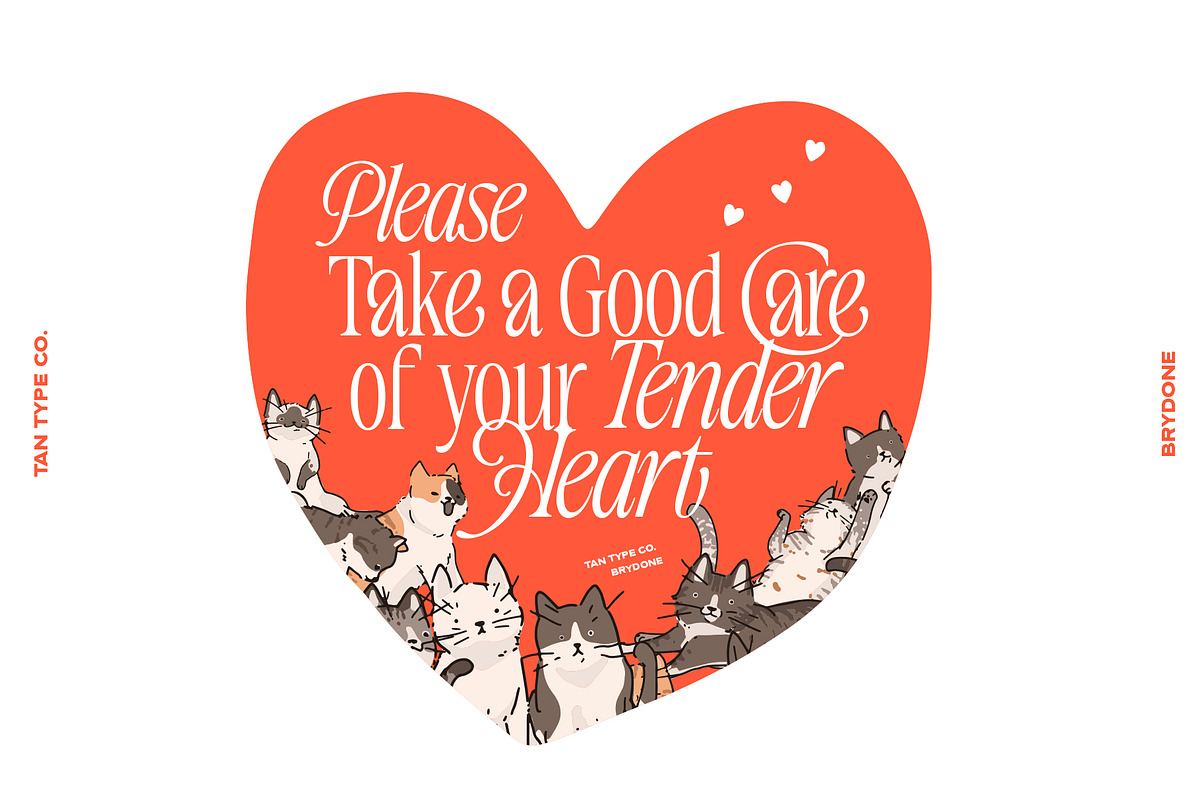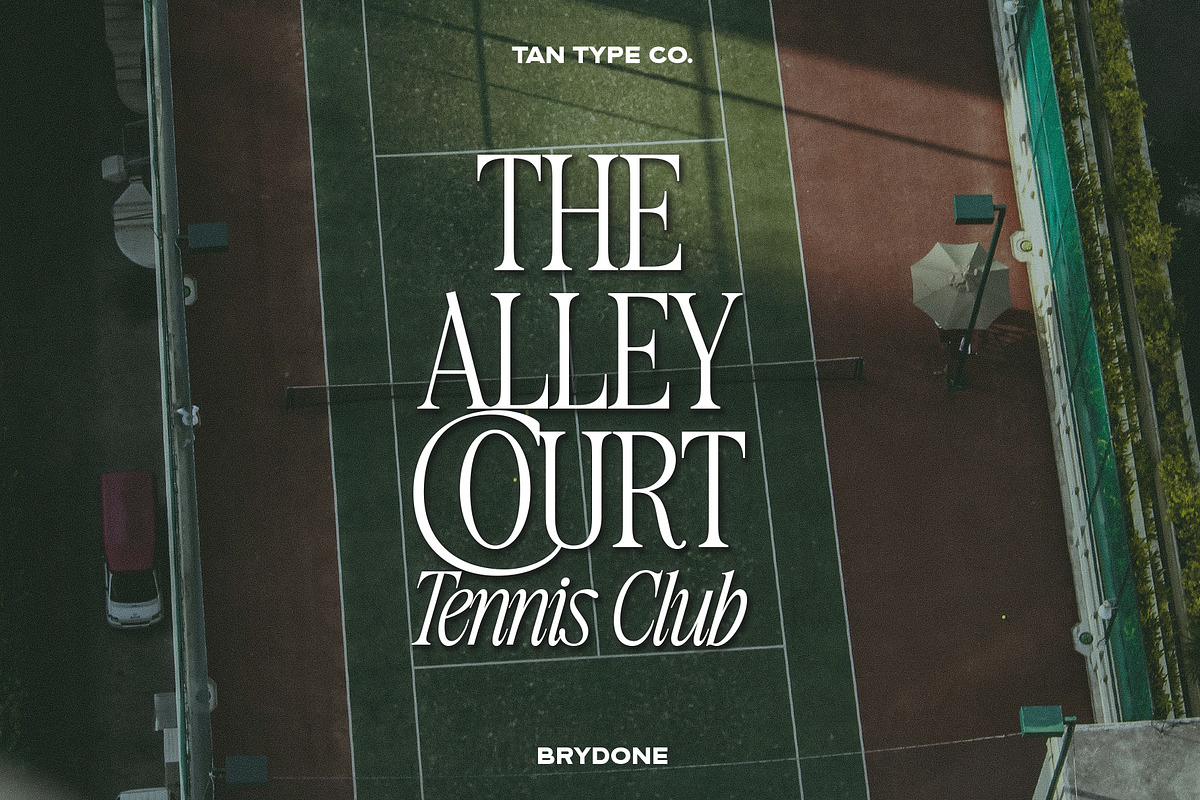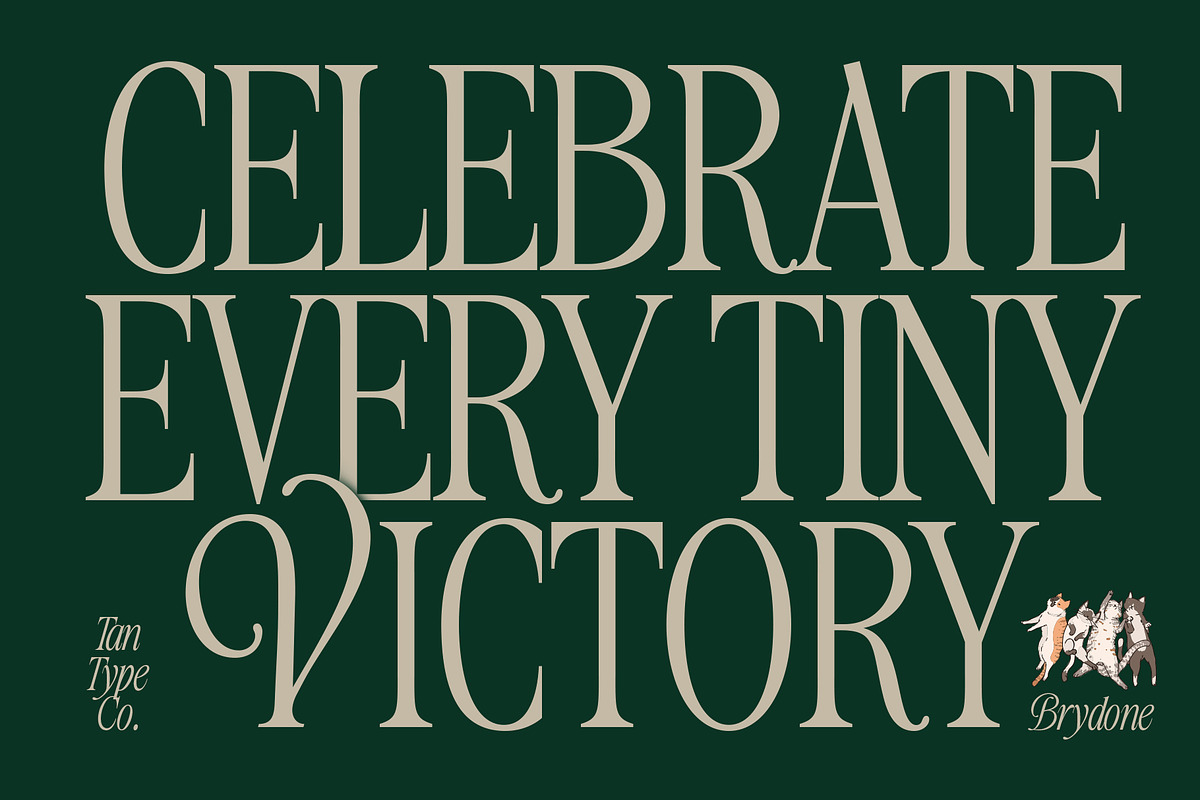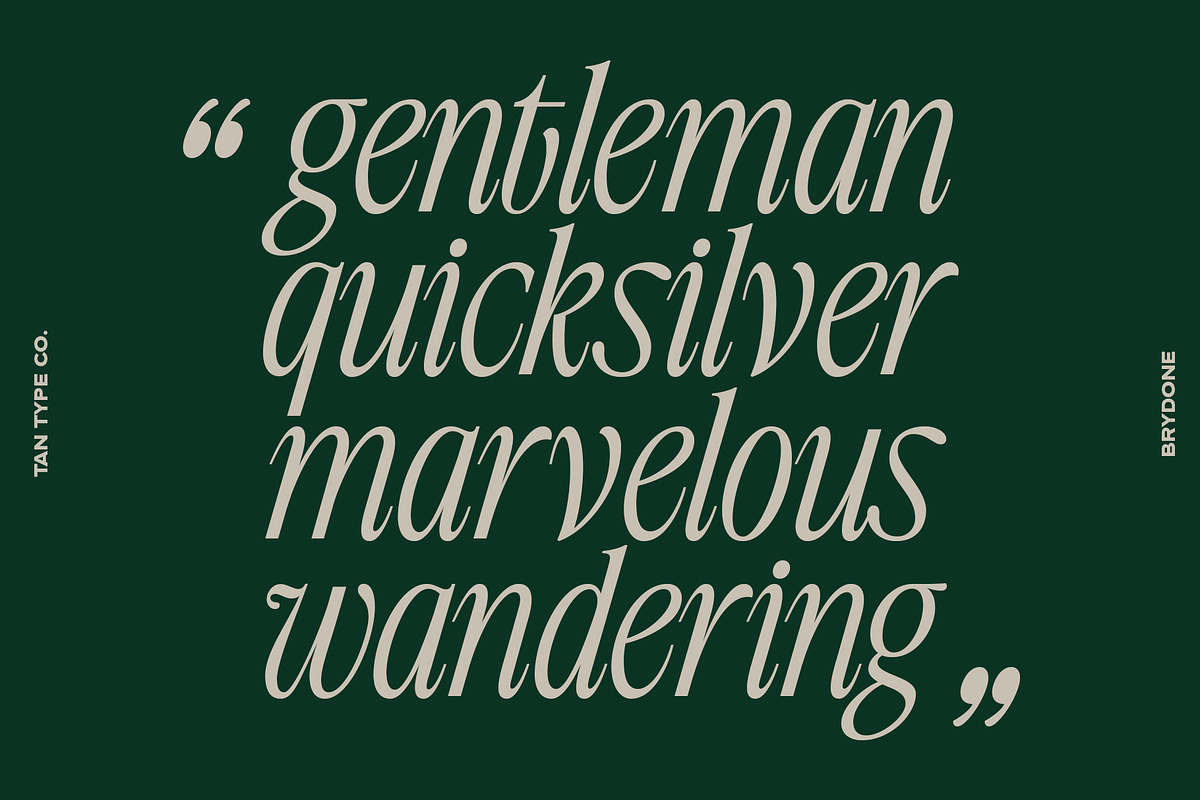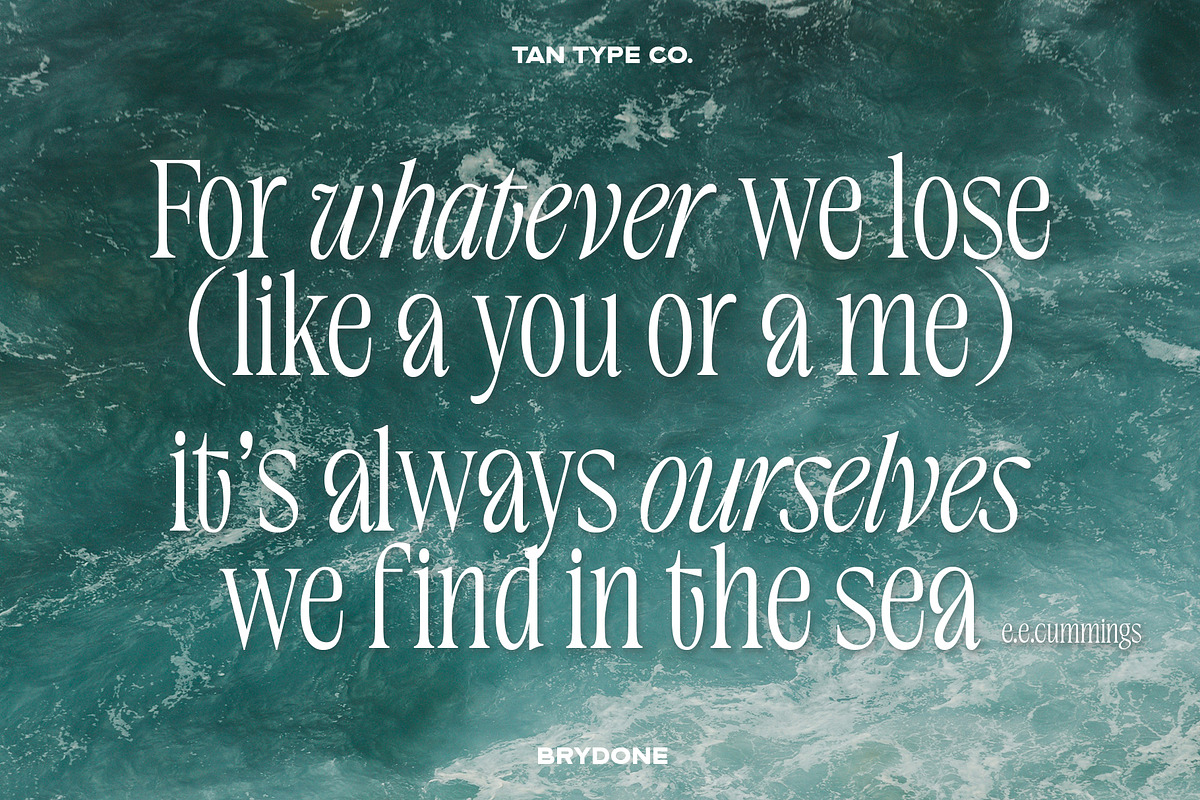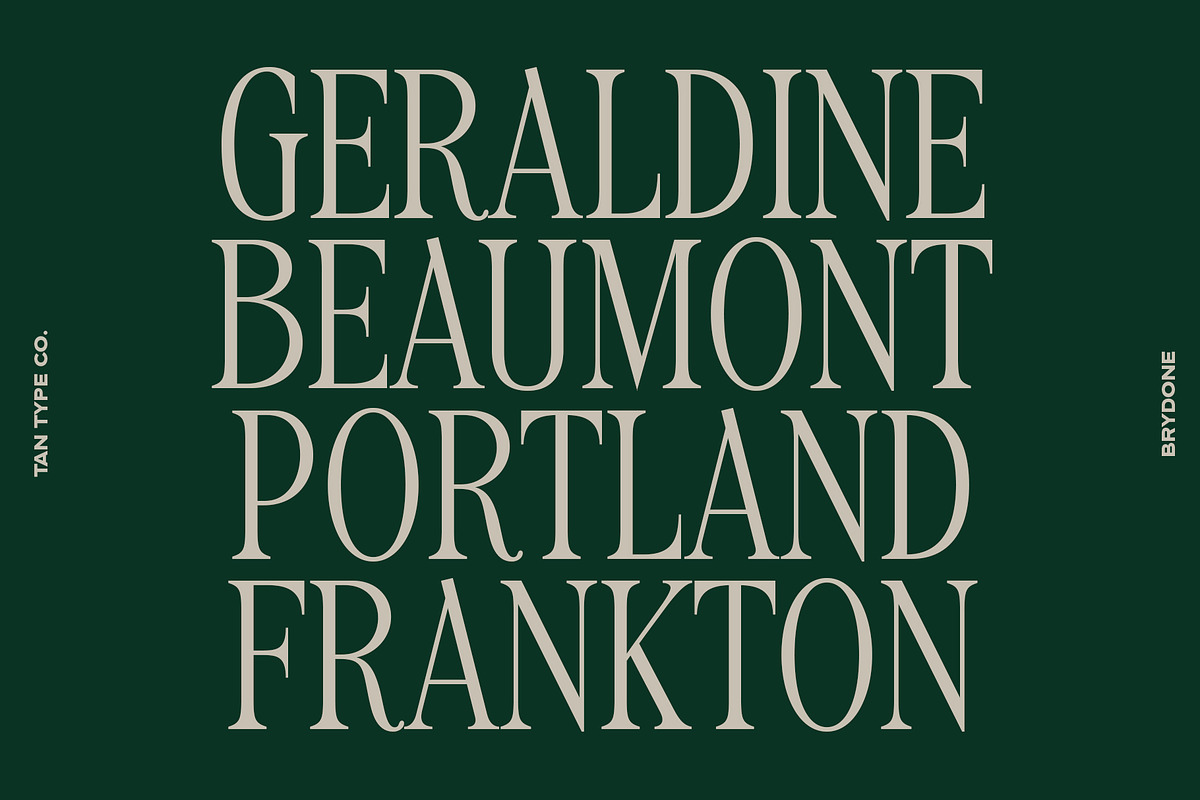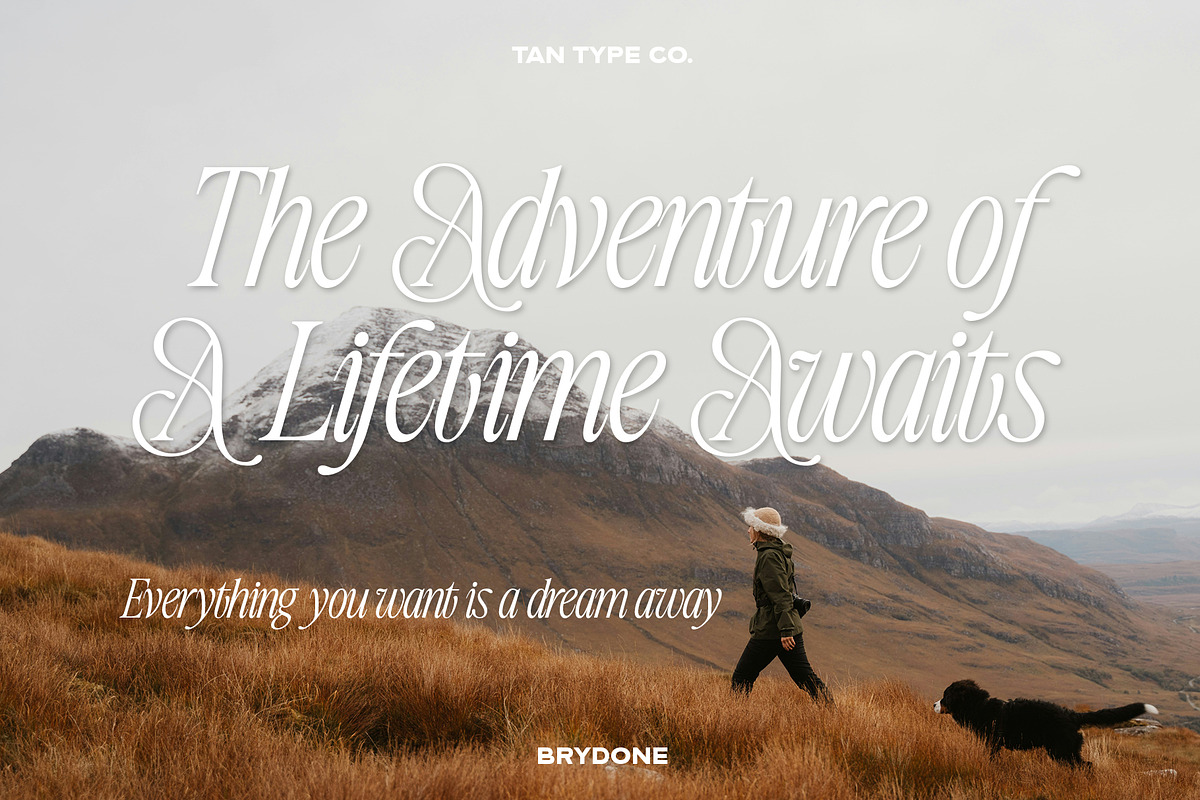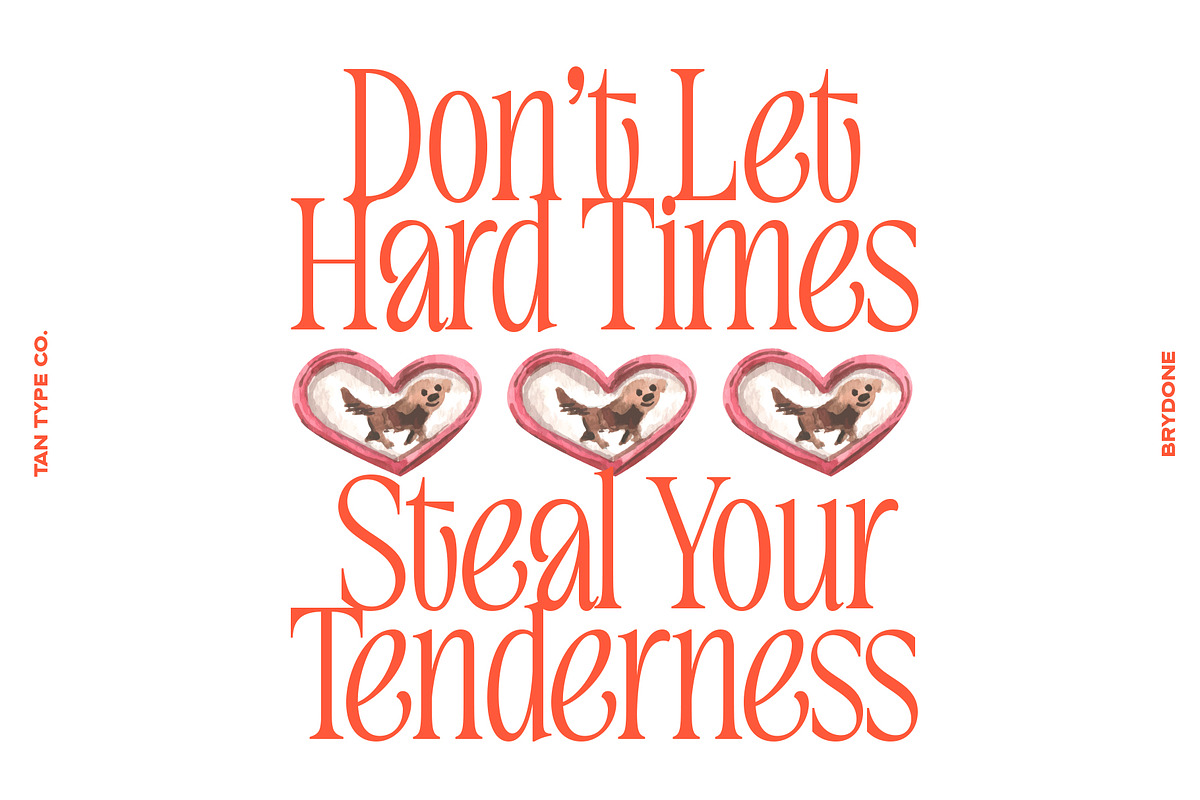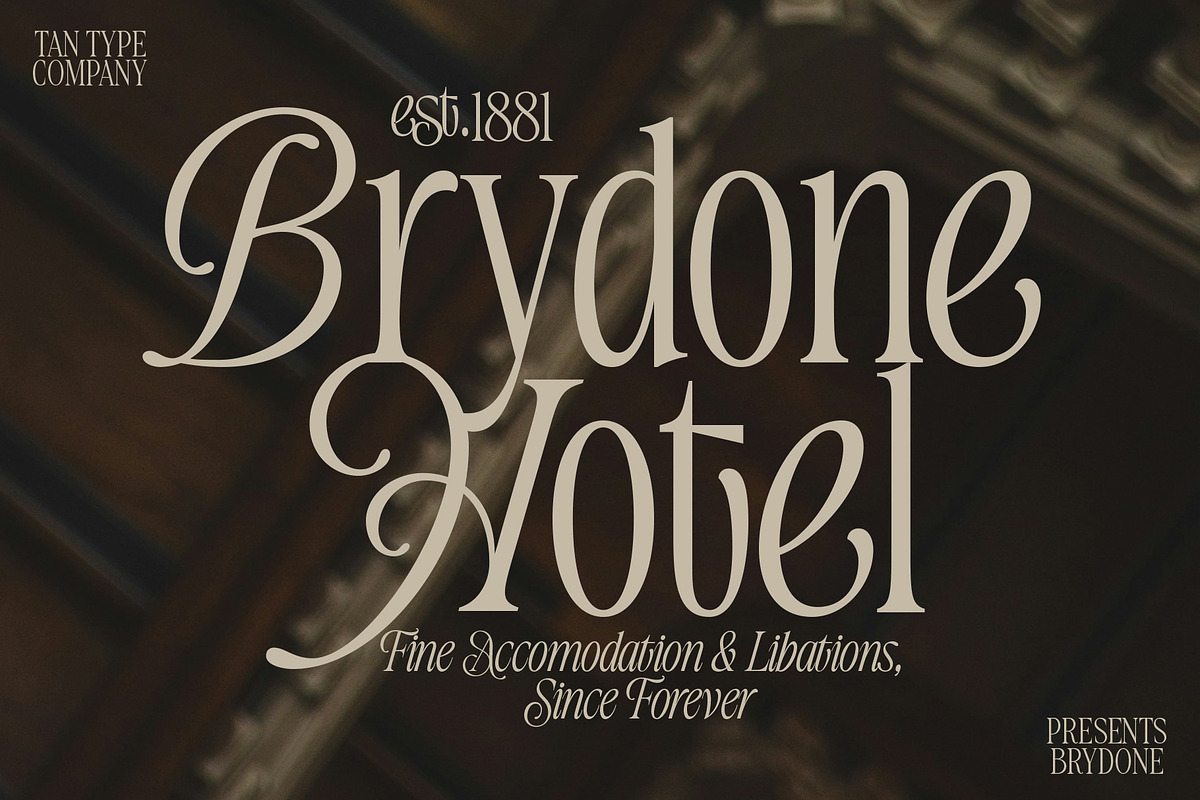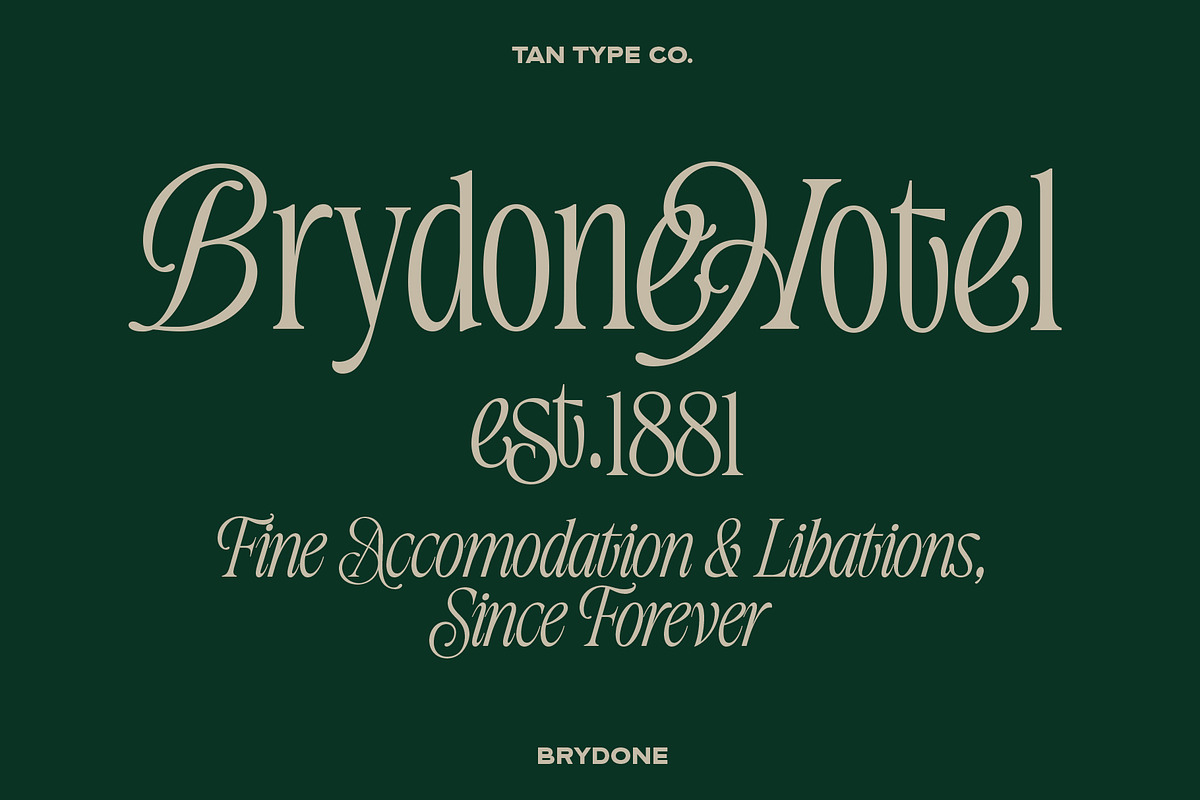
TAN-BRYDONE
Introducing Brydone, a charming serif typeface that blends classic elegance with a warm, approachable demeanor. With its gently rounded edges and timeless letterforms, Brydone exudes reliability and friendliness, making it perfect for both print and digital media. Whether you're crafting a heartfelt message, a cozy invitation, or a professional document, Brydone brings a touch of sophistication without sacrificing warmth. Its versatile nature ensures that it stands out while maintaining a sense of familiarity, making every word feel welcoming and trustworthy. Embrace the classic charm of Brydone and let your text resonate with character and grace.